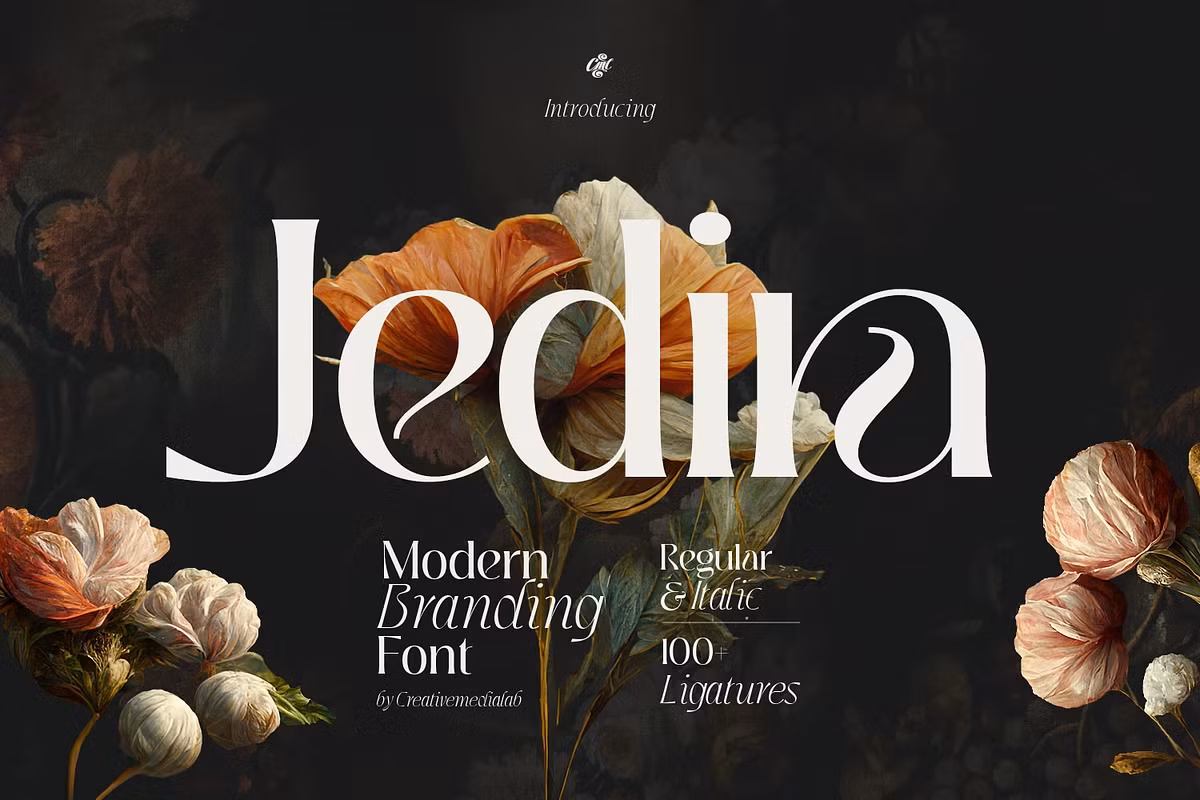
Jedira – Modern Branding Font Free Download is a sleek and elegant typeface crafted for high-end branding and stylish design. With its clean lines, subtle curves, and contemporary flair, Jedira is perfect for fashion labels, beauty products, logos, editorial layouts, and minimalist packaging that needs a refined, professional touch.
Jedira – Modern Branding Font Free Download delivers sophistication and modern simplicity, making it a go-to choice for creating timeless, upscale visuals. Whether you're building a chic brand identity or designing elegant promotional materials, this font adds the perfect balance of class and clarity. Download it today and bring a modern, luxurious feel to your next design.